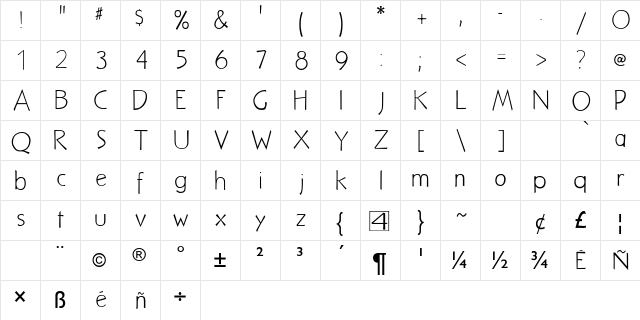
NuevoLitho Light Free Font
NuevoLitho Light
Design Context for NuevoLitho
NuevoLitho is a composed and adaptable typeface that performs quietly and consistently across a wide range of design contexts. Its slender proportions lend an understated elegance to any composition.